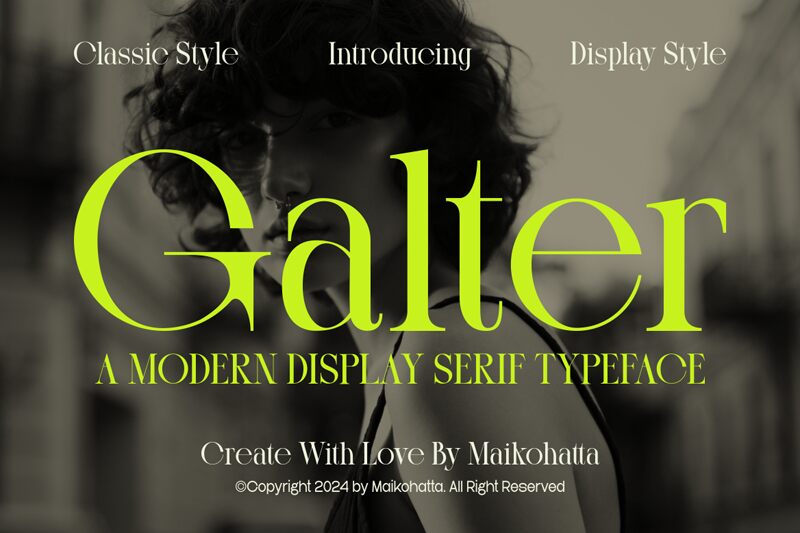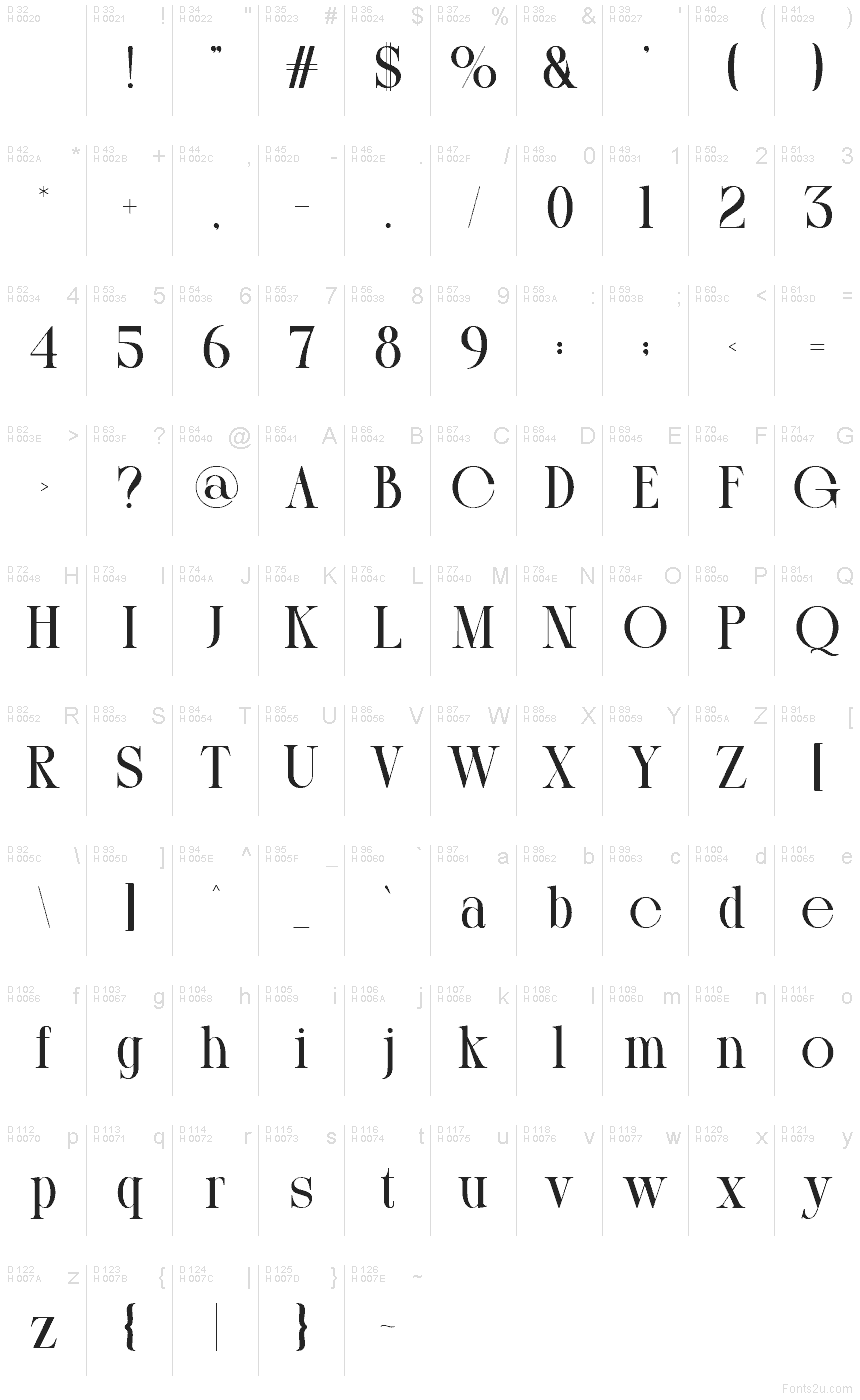
Galter
Galter font by Gilang Ternadho is a free modern serif typeface. Its character comes from velvet-smooth curves meeting knife-sharp thins, creating a lush, editorial rhythm that feels both luxurious and precise. Letters settle into generous spacing, so even bold statements read with a calm, controlled cadence.
Using Galter, headlines gain couture polish while staying legible at a glance. It shines on magazine covers, fashion branding, luxury packaging, book jackets, posters, and editorial pull quotes. Keep it large to let those sculpted strokes breathe; for longer text, pair this free font with a neutral sans serif to handle paragraphs without stealing the spotlight.